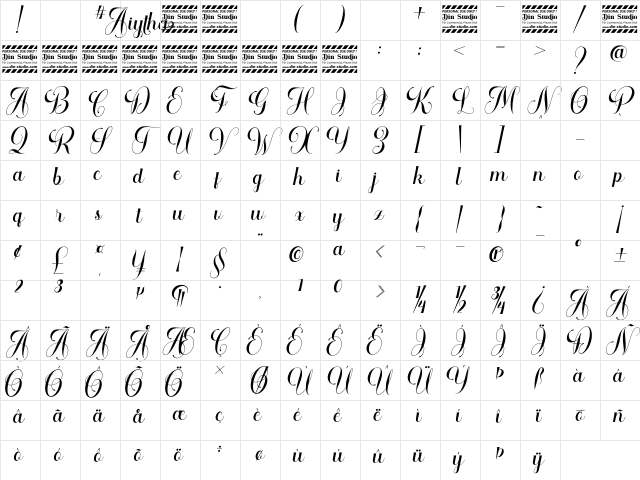
Aiytha Personal Use Regular Free Font
Aiytha Personal Use Regular
Designer: Donis Miftahudin
Complete Aiytha Personal Use Regular glyph index. Displaying only characters natively supported by Aiytha Personal Use Regular font.
Design Context for Aiytha Personal Use
Aiytha Personal Use is a composed and adaptable typeface that performs quietly and consistently across a wide range of design contexts.